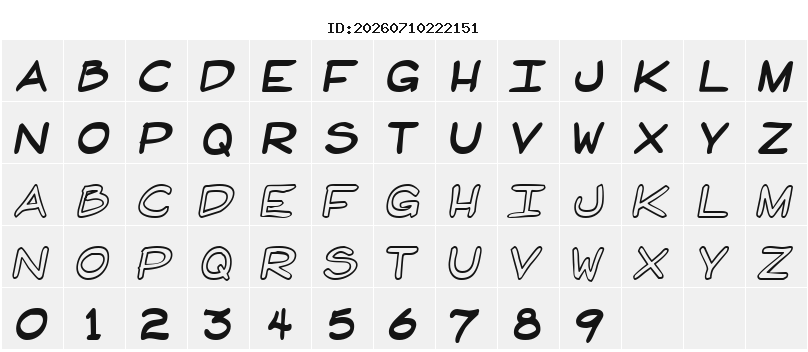
HandWrit Preview
• Font Name: HandWrit
• Full Font Name: HandWrit
About HandWrit.ttf
HandWrit.ttf is a modern, elegant sans-serif font designed for ultimate readability and visual harmony. Perfect for branding, headlines, web design, and print materials.